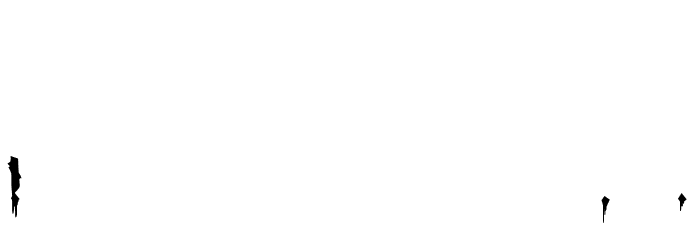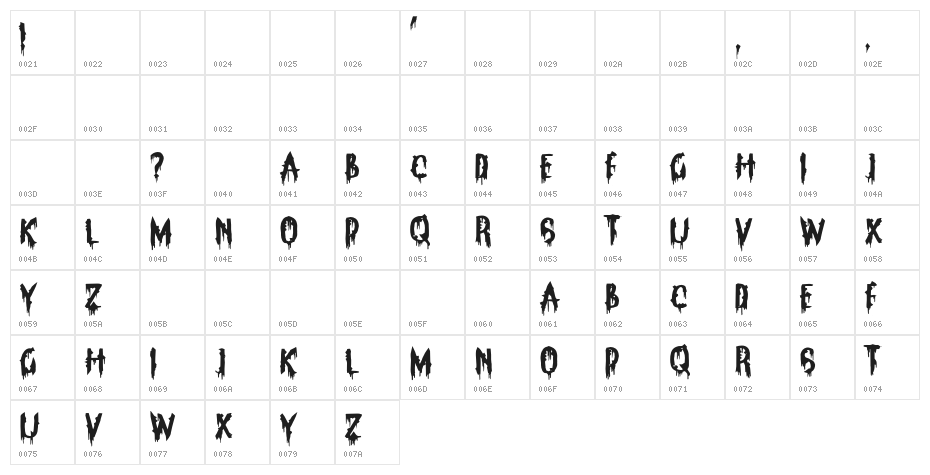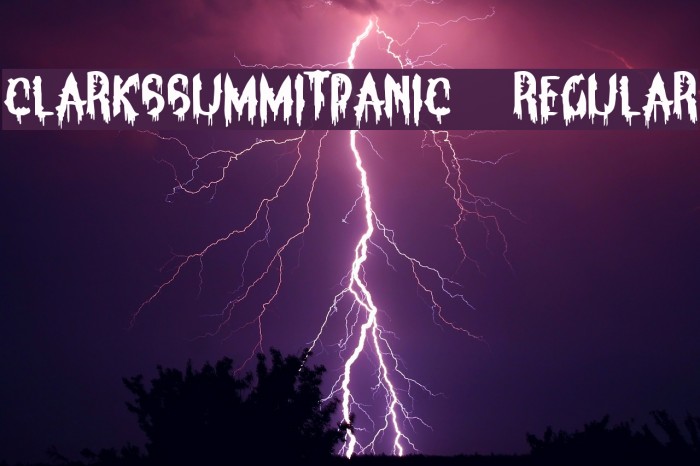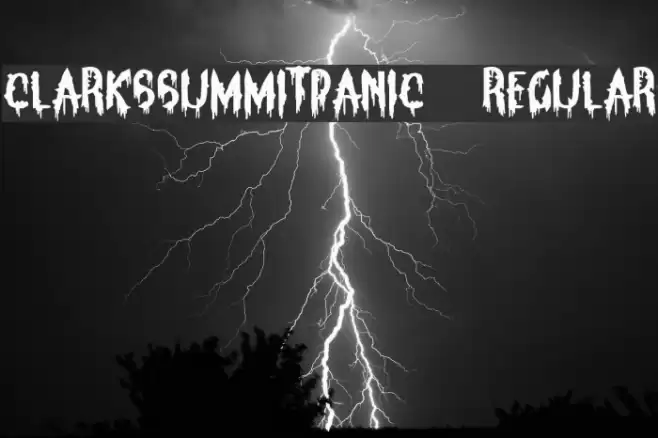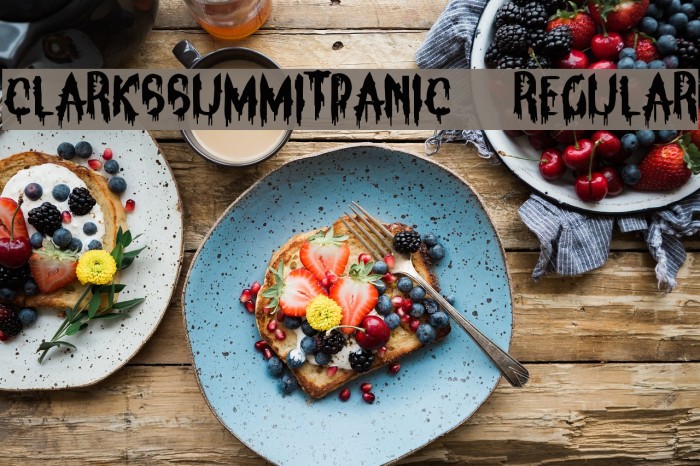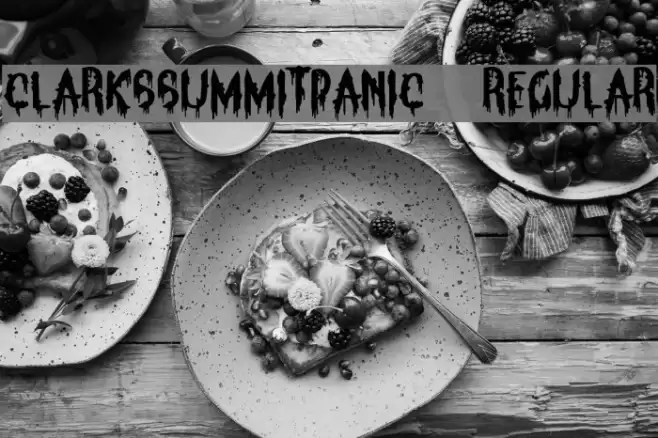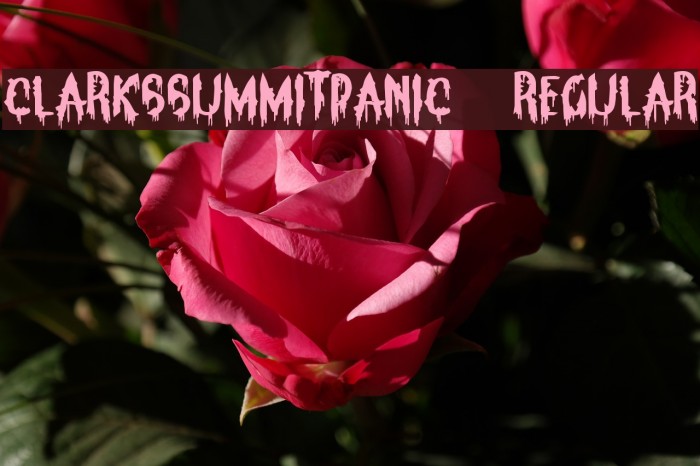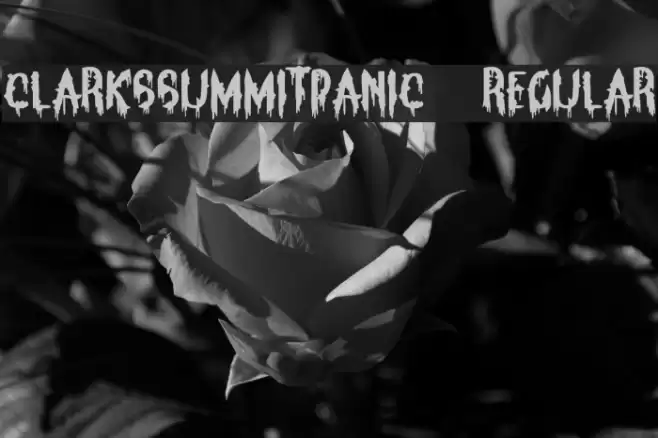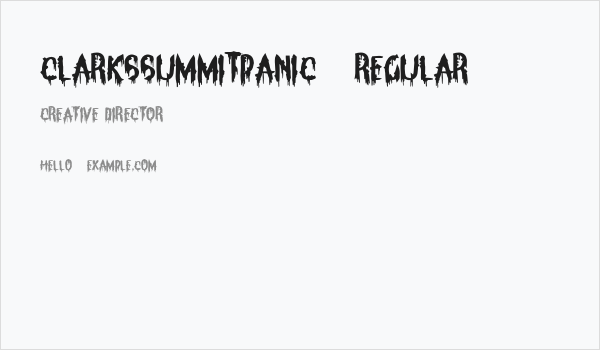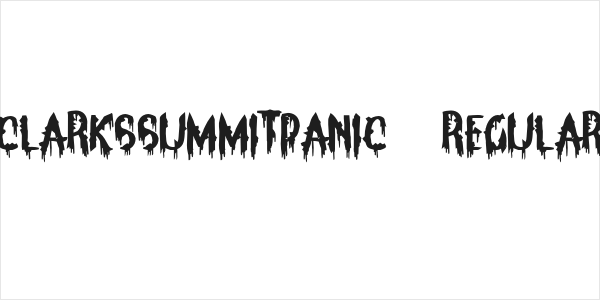
ClarksSummitPanic-Regular Font
ClarksSummitPanic-Regular Description
This font features a dramatic and eerie style, characterized by its dripping, jagged edges that evoke a sense of horror and suspense. The uppercase and lowercase letters maintain a consistent, bold appearance, with each character appearing as if it is melting or dripping. The numbers and special characters follow the same unsettling theme, making it ideal for designs that require a spooky or Halloween-inspired aesthetic. The font's unique style is both eye-catching and memorable, perfect for creating a chilling atmosphere in any design project.
| Proposed Projects | Ideal for Halloween posters, horror movie titles, haunted house flyers, and spooky event invitations. |